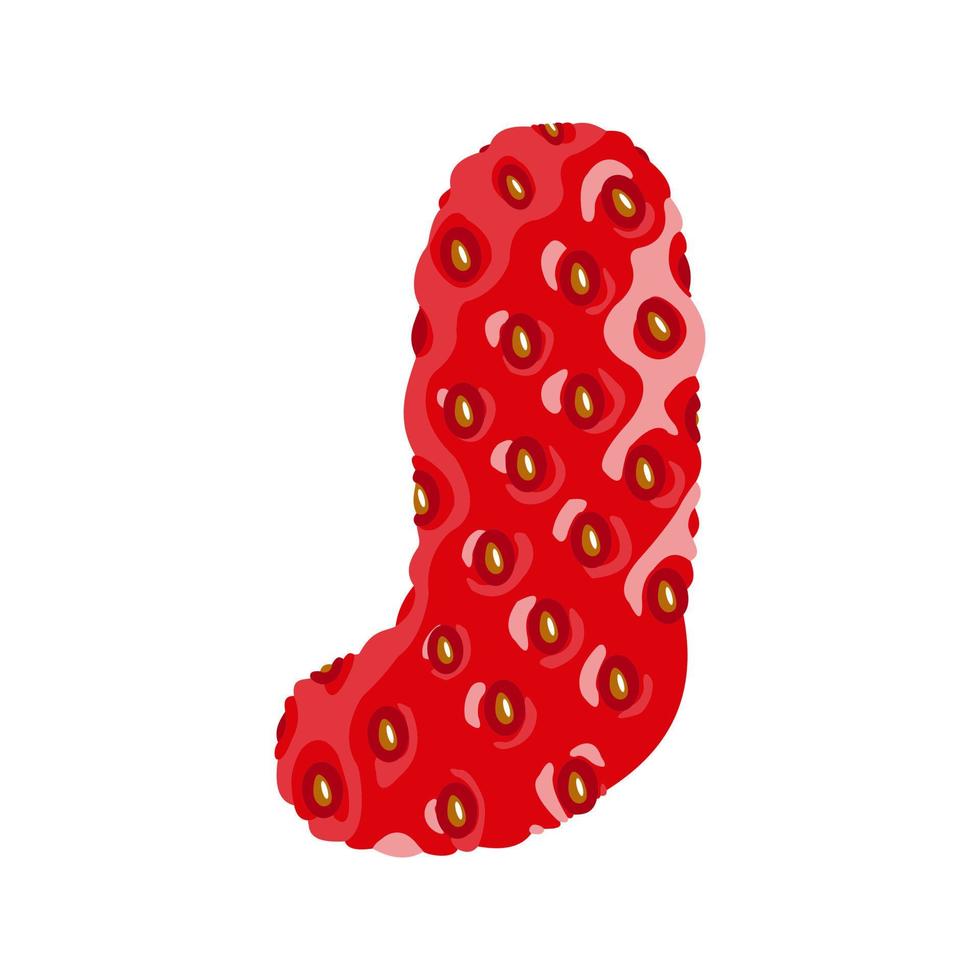
Strawberry font. Letter J. Alphabetical character with strawberry texture. Character representing one or more of the sounds used in speech. Decorative fruit font. Vector illustration. Pro Vector